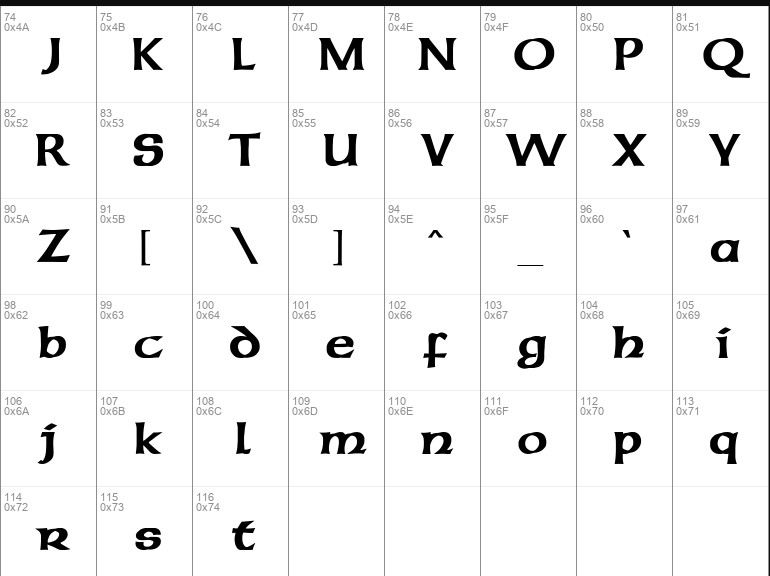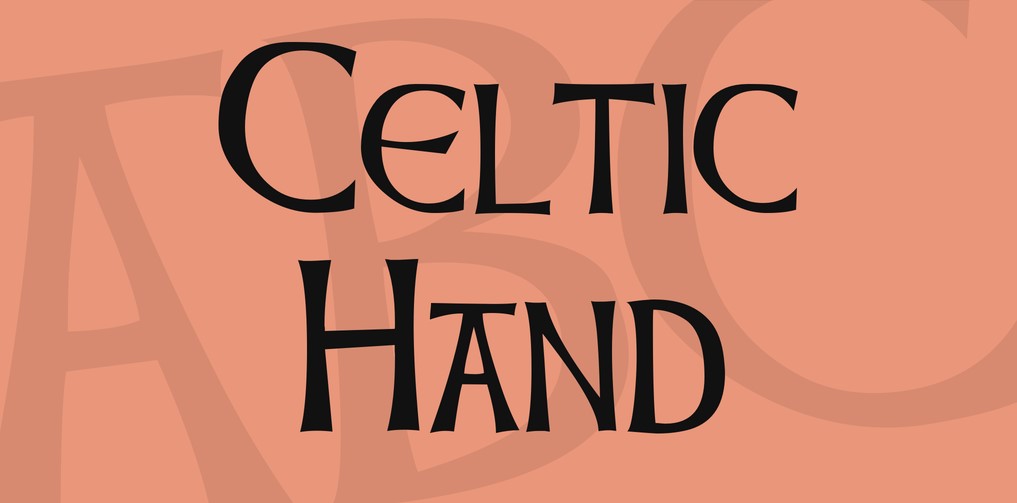
Celtic Font
Celtic Font is known for its bold and italic function. This is an unical typeface that is quite similar to the garamond font and it is also listed in google fonts. A clever route of movement for all artists is to check the subsequent font. And modern-day-day-day typefaces, as the ones are commonplacely loose for gift-day industrial use.
An entire lot of outstanding vibes font want too many snapshots cleansing up the factors, however, that makes propose you can discover pinnacle alternatives, he says for an identification mission. Celtic Font Free The family encompasses each day, ambitious, italic and sharp italic patterns. It hobbies to provide browsers with an immoderate diploma of seen assist. It’s available considered in truth taken into consideration one in every of the type weights.